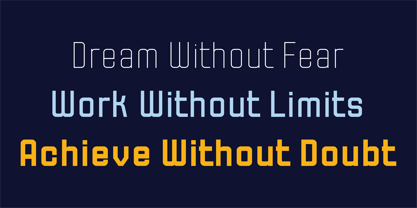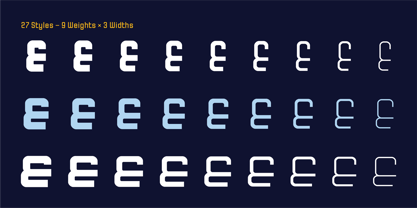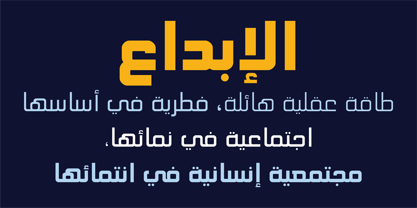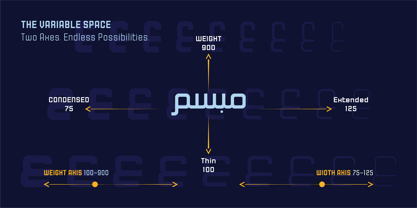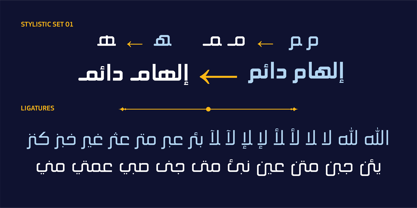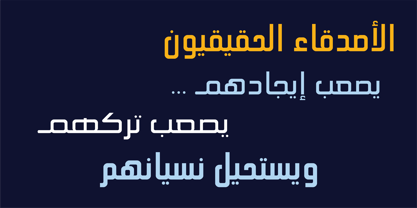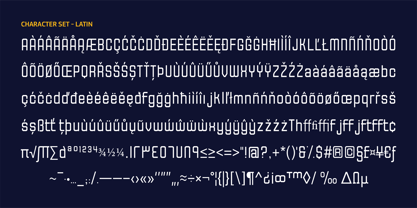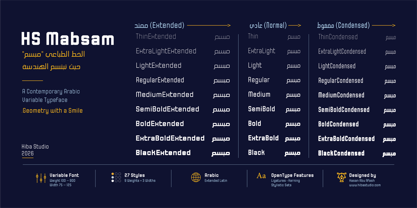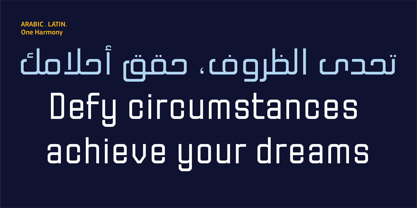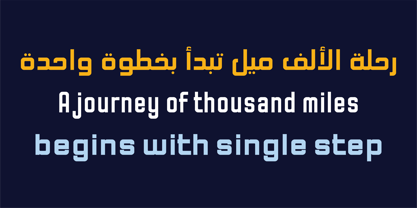
HS Mabsam
por Hiba Studio
La familia tipográfica HS Mabsam fue diseñada por Hasan Abu Afash y publicada por Hiba Studio. HS Mabsam contiene 28 estilos y opciones de paquete familiar. Más información sobre esta familia
HS Mabsam - Where Geometry Smiles
HS Mabsam is a contemporary Arabic Variable Font built around geometric simplicity as a design philosophy, not just a visual style.
Rather than drawing on historical forms or ornamental detail, HS Mabsam focuses on the structural essence of the letterform, refining every curve, angle, and proportion to reveal a clear, balanced, and confident typographic expression.
The typeface is designed as a two-axis Variable Font, offering independent control over Weight and Width. This allows designers to create a wide range of compositions, from clean editorial layouts to bold display typography and modern digital interfaces.
With 27 carefully developed static instances and full support for Arabic and Extended Latin, HS Mabsam provides a complete typographic family suitable for branding, publishing, advertising, packaging, interfaces, and contemporary visual communication.
Built on geometry rather than ornament, HS Mabsam offers a calm, confident visual language for designers seeking clarity, flexibility, and a distinctive contemporary Arabic voice.
Diseñadores: Hasan Abu Afash
Fundición: Hiba Studio